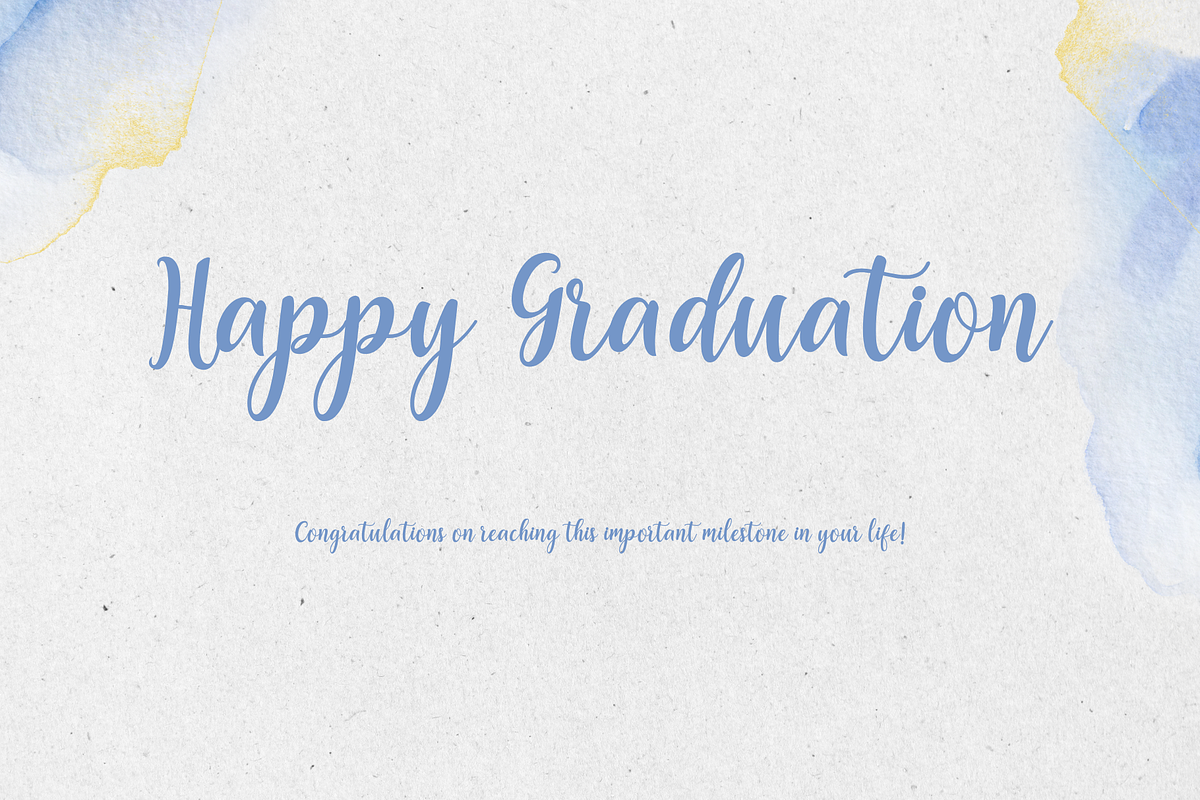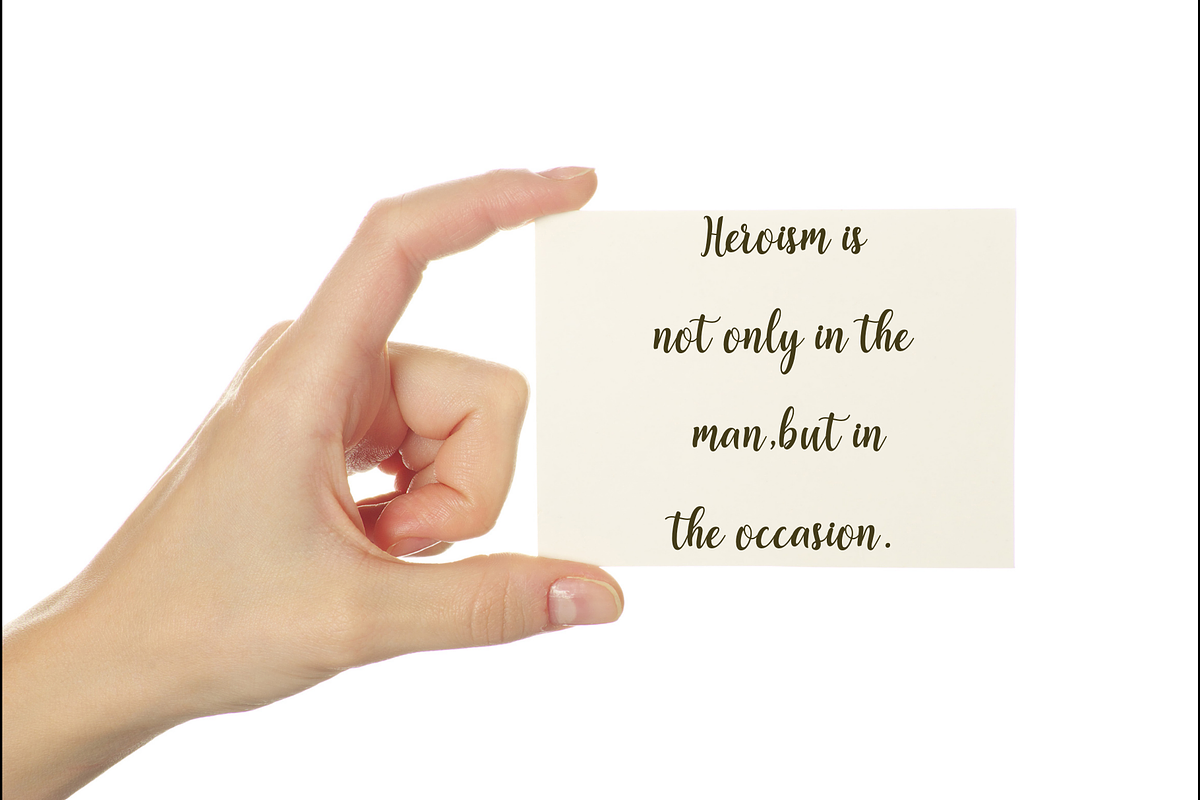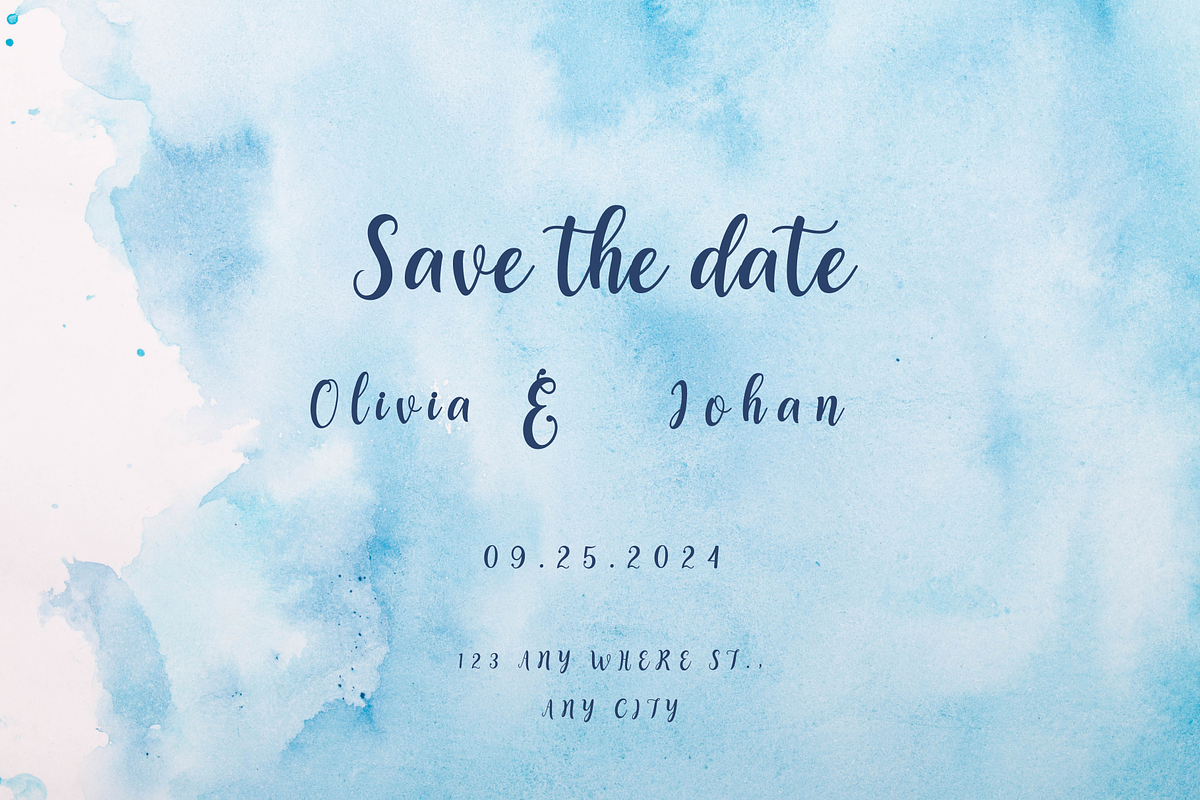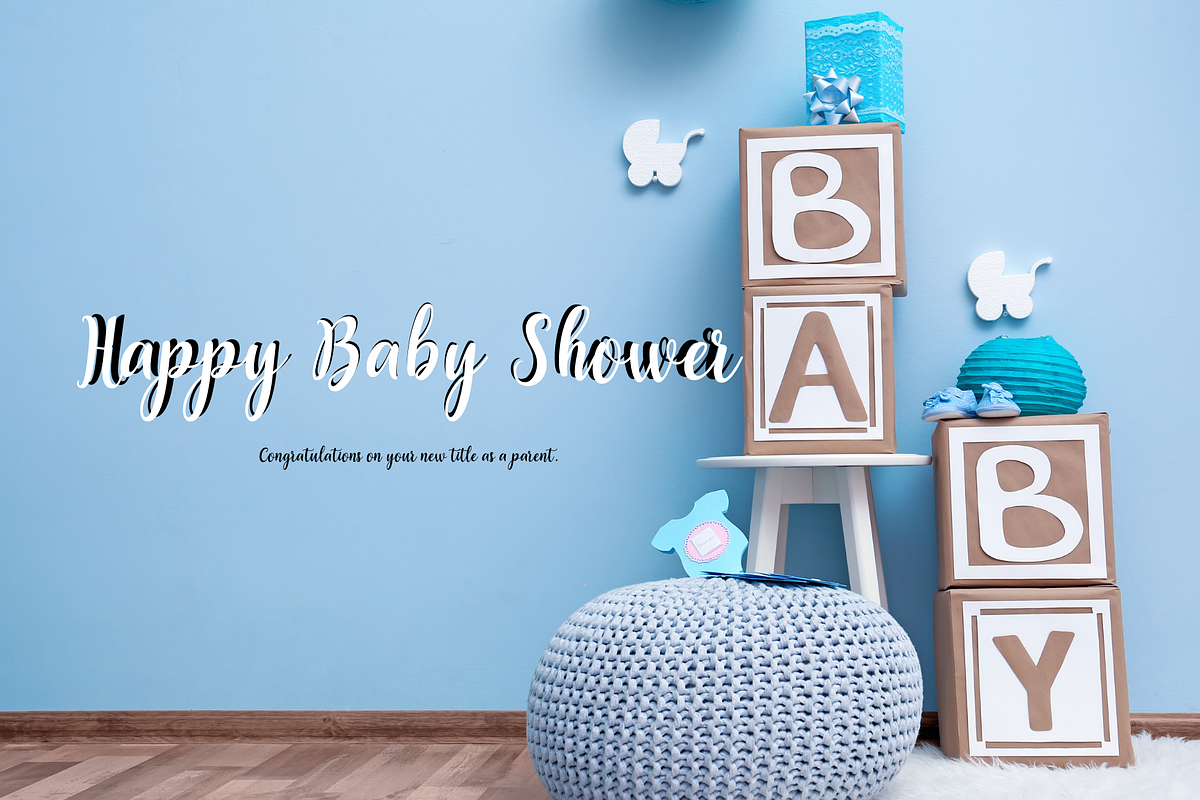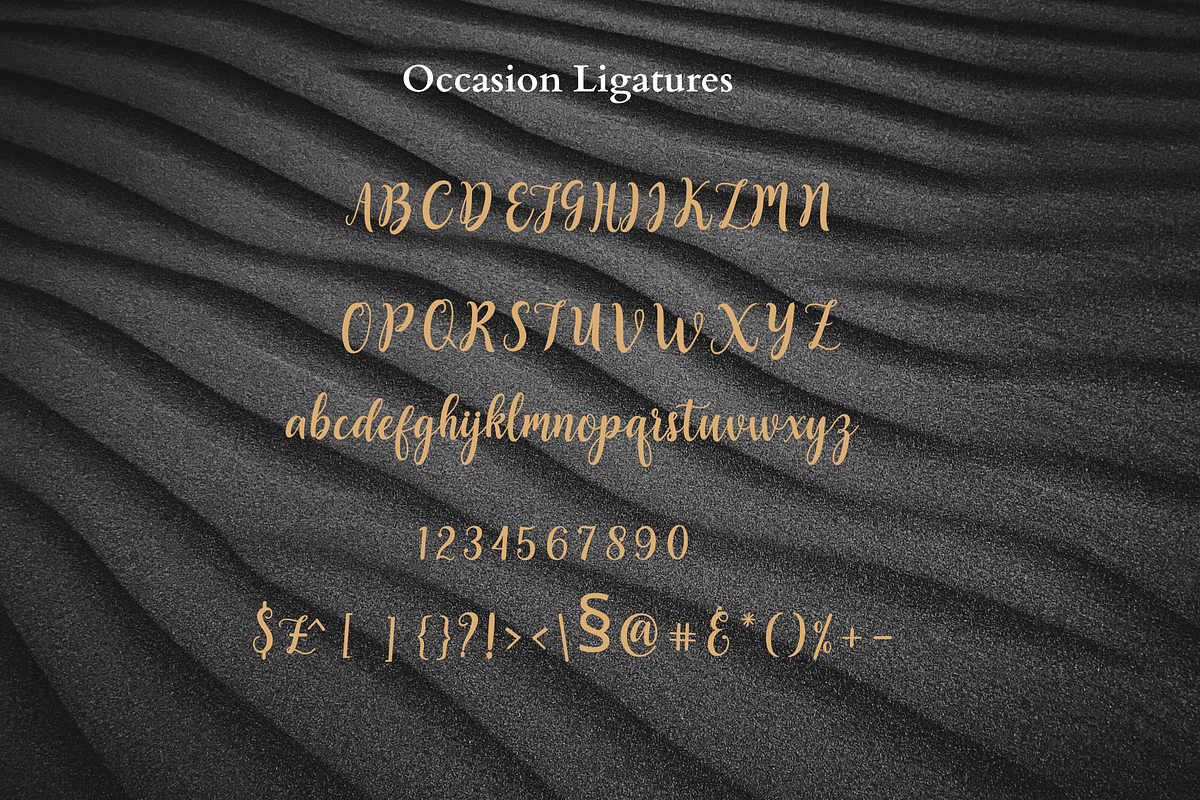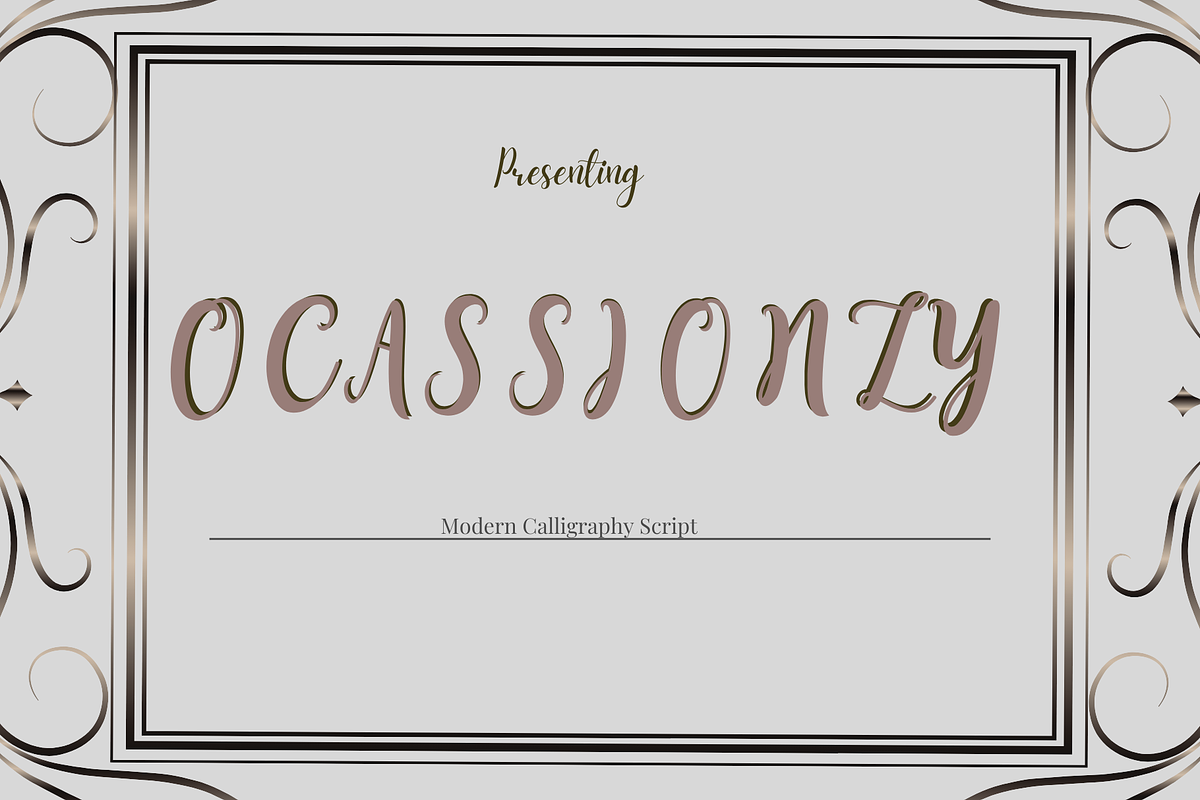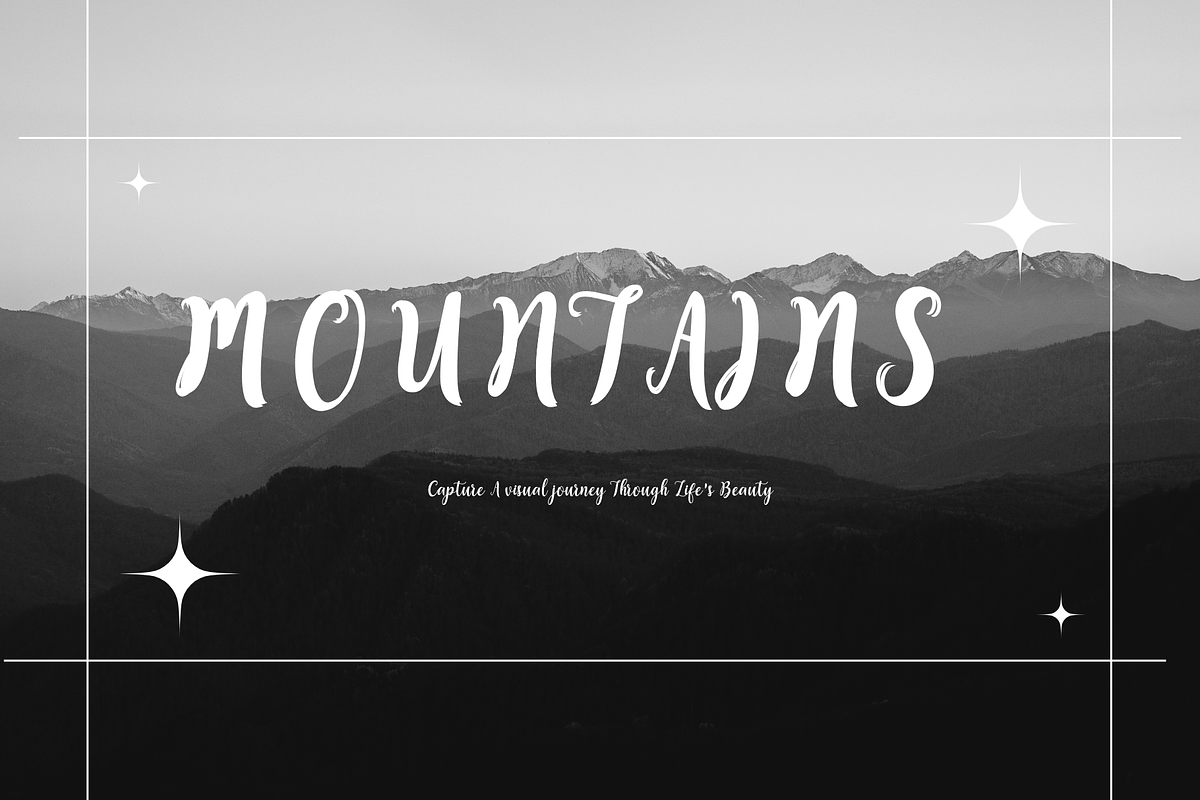
Occasionally Modern Calligraphy
Occasionally is a stylish and delicate script font. It has a clean, thin and smooth vibe and it will be a hit for any design that you want to add it to. This font is PUA encoded which means you can access all of the glyphs and swashes with ease!